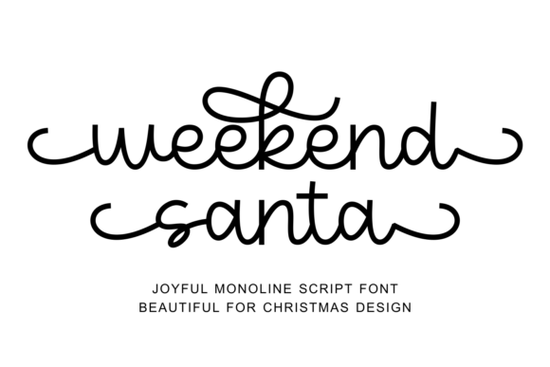
If you're getting ready for the holiday season and need a font that feels like hot cocoa by the fire warm, cheerful, and full of personality the Weekend Santa Font is worth adding to your creative toolkit. This monoline script brings a playful yet polished look to Christmas cards, vinyl crafts, gift tags, and seasonal apparel without sacrificing readability or ease of use.
Designed with consistent line weight from start to finish, Weekend Santa avoids the complexity of variable-thickness scripts while still offering plenty of festive flair. Its exaggerated swirls, seamless letter connections, and handcrafted charm make it ideal for projects where you want a joyful, personal touch without spending hours tweaking details.
Why monoline script fonts work so well for holiday projects
Monoline fonts like Weekend Santa are especially practical for crafters and small businesses because they cut cleanly on machines like Cricut or Silhouette. Since every stroke has the same thickness, there’s no risk of delicate hairlines breaking during weeding or printing. That reliability matters when you’re making dozens of ornaments, mugs, or personalized stockings.
Beyond vinyl, this style translates beautifully to digital designs think Instagram graphics, printable party invites, or Etsy product mockups. The font’s PUA encoding also means all its special characters, swashes, and alternates are accessible right through your design software (like Adobe Illustrator or Canva), so you can mix and match endings for a custom look without switching fonts.
What kinds of projects suit Weekend Santa best?
This font shines wherever you want to evoke cozy holiday cheer with a handmade feel. Here are a few go-to uses:
- Greeting cards and gift tags – Pair it with simple illustrations or kraft paper textures for instant warmth.
- Festive home decor – Think wooden signs, pillow embroidery, or wall art with phrases like “Joy,” “Noel,” or “Merry & Bright.”
- Holiday apparel – T-shirts, sweatshirts, and aprons featuring punny sayings (“Sleigh All Day”) look extra inviting in this friendly script.
- Seasonal packaging – Small businesses can use it on labels for cookies, candles, or bath products to create a memorable unboxing moment.
How does Weekend Santa compare to other holiday fonts?
Unlike display fonts that lean heavily into ornamentation (or mimic classic typefaces like those inspired by Disney font styles), Weekend Santa keeps things light and versatile. It doesn’t overwhelm your layout, and it scales well from tiny gift tags to large window decals.
Its monoline structure also makes it more beginner-friendly than brush scripts, which often require manual kerning or layer adjustments. You get decorative appeal without the technical hassle, which is a big plus if you’re juggling multiple holiday orders or last-minute DIY gifts.
Tips for using Weekend Santa effectively
To keep your designs looking intentional rather than cluttered:
- Avoid all caps – Script fonts like this are designed for lowercase or sentence case. Uppercase letters can break the natural flow.
- Use swashes sparingly – The ending flourishes are lovely, but too many in one line can reduce legibility.
- Pair with a clean sans-serif – Fonts like Montserrat or Lato balance Weekend Santa’s whimsy with modern simplicity for headers or supporting text.
- Test print or cut early – Even though it’s machine-friendly, always do a small test run before committing to a full batch.